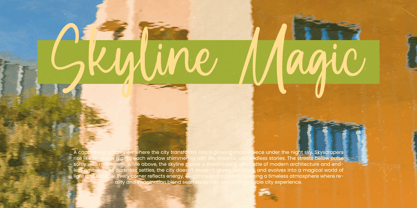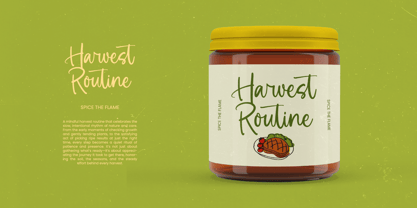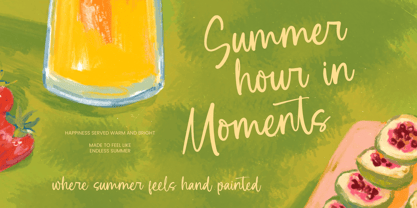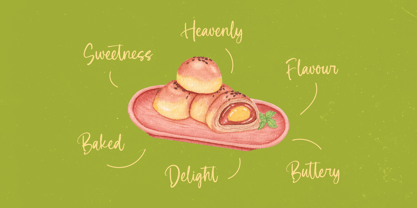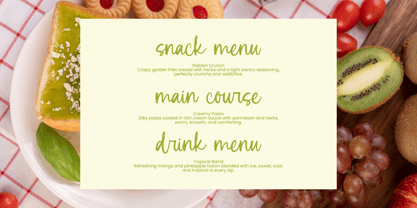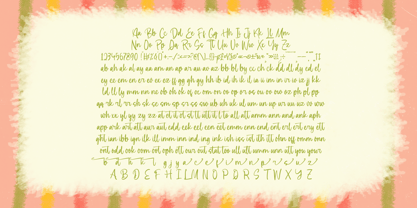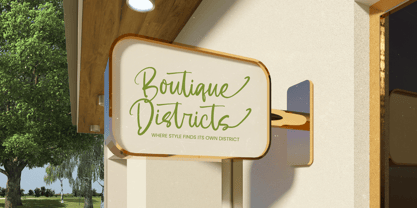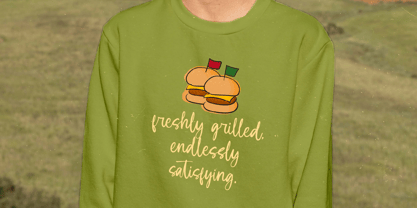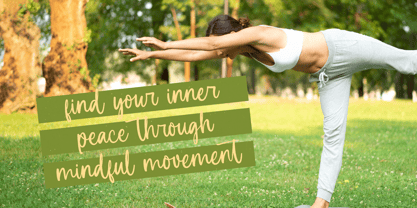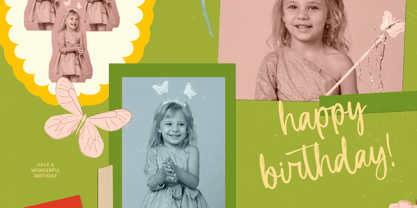
Summer Moments
Die Schriftfamilie Summer Moments wurde von Heru Utama Putra entworfen und von Letterena Studios veröffentlicht. Summer Moments enthält 2 Stile und Familienpaketoptionen. Mehr über diese Familie
Summer Moments - Handwritten Ink Font
Elevate your creative projects with the organic charm and fluid aesthetics of Summer Moments - Handwritten Ink Font. This meticulously crafted typeface captures the essence of authentic ink strokes, providing a personal, handcrafted feel that breathes life into digital and print media. By blending casual elegance with a professional finish, it ensures your message remains both impactful and visually engaging for any contemporary audience.